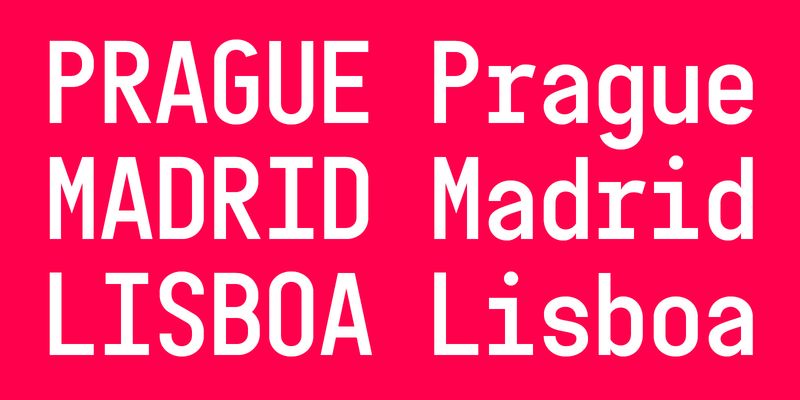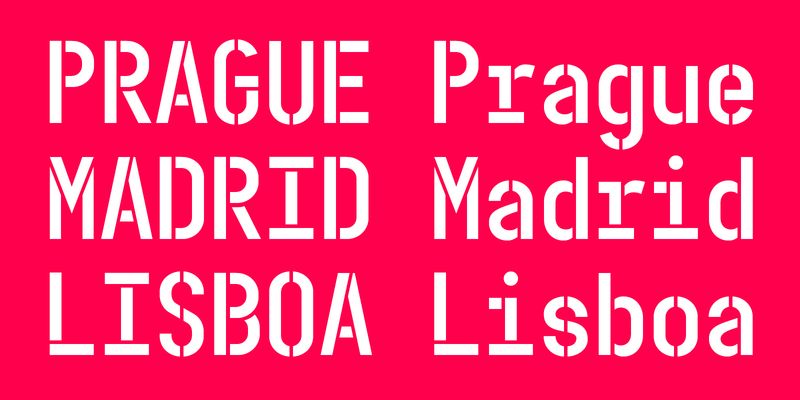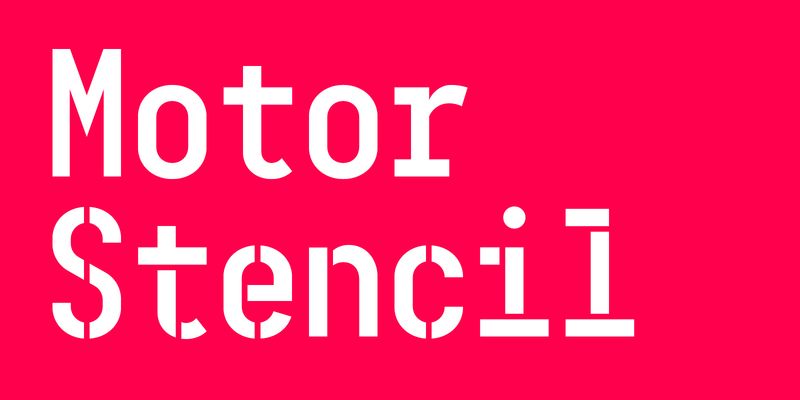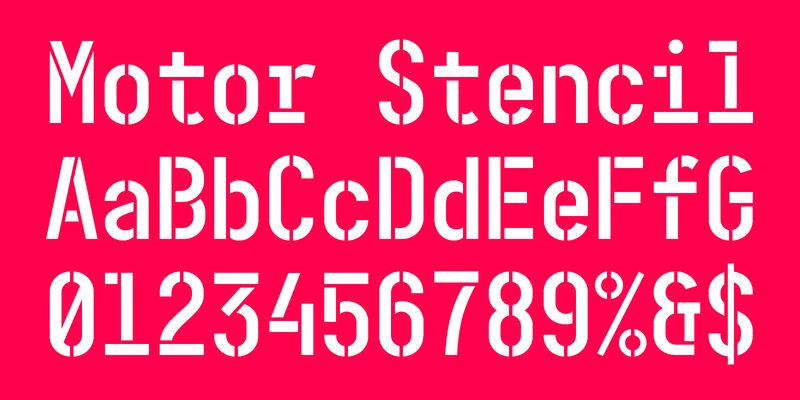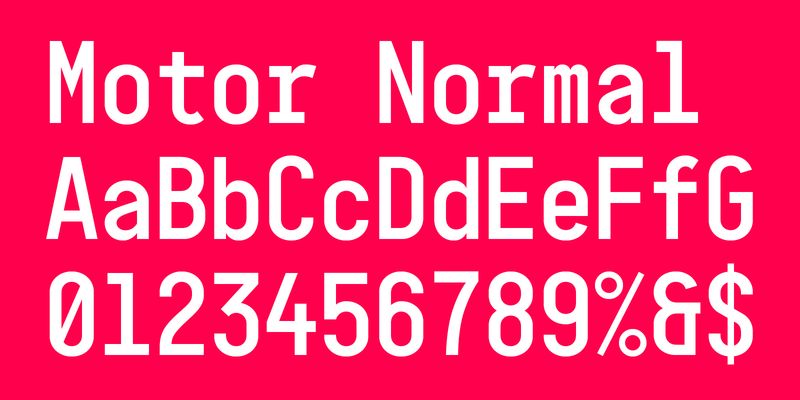
Motor Normal and Motor Stencil are monospaced fonts with technical charm. In its monotone and reliable rhythm it tends towards condensed proportions reminding of old poster fonts. Its origins lie in the typeface Mono45 Headline and the manually stamped tickets found at the University-hospital in Zurich.